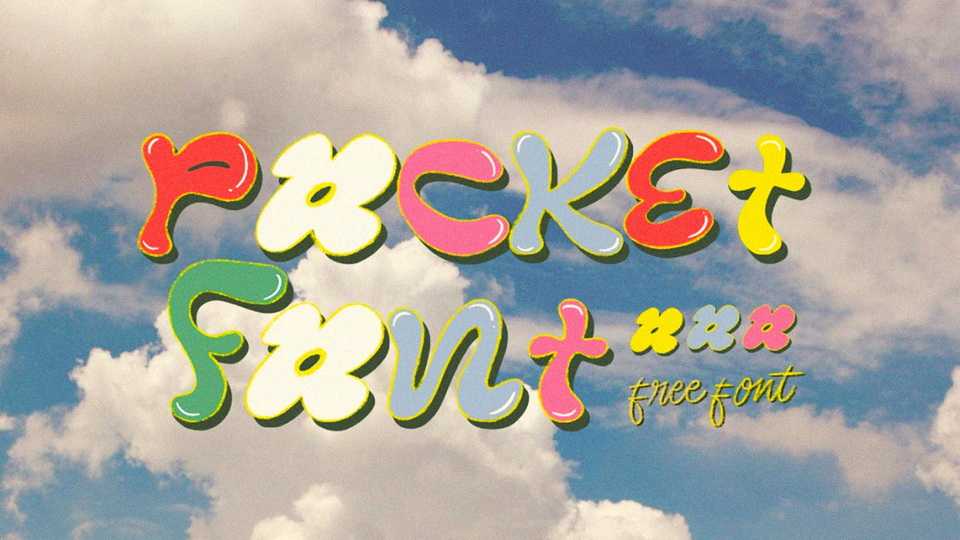
Download Pocket font, an experimental typeface created for that you feels good vibes and enjoy the letters. Spice up your project and add some happy mood with Pocket font!
Designer: Santiago Kunst